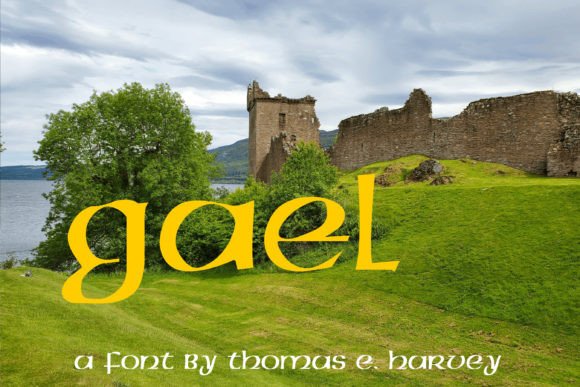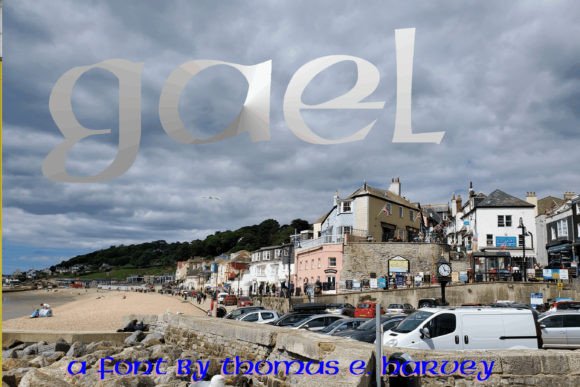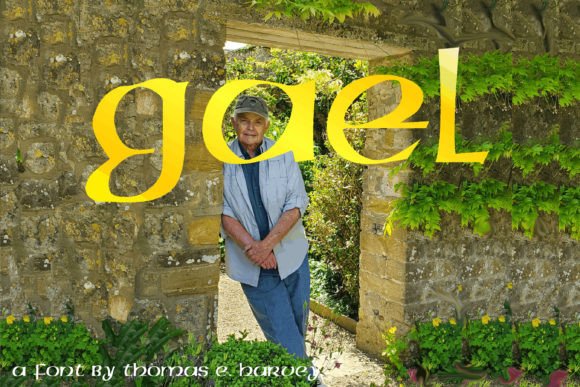
Gael Font: Vintage Typography for Celtic & Irish Logo Design
About the Gael Font
The Gael Font offers a perfect balance of form and function for your design needs. Gael echoes the Celtic fonts of the past. An essential old world font to use for projects that wish to have Irish, Scottish, Welsh or Cornish sensibilities.
Gael’s strong, slightly rustic character makes it ideal for headlines, logos, and short-form text in projects requiring a heritage feel. It works exceptionally well for branding related to whiskey, craft breweries, or traditional businesses emphasizing craftsmanship. Avoid using Gael for body text or lengthy passages; its ornate details can become visually overwhelming at smaller sizes.
Consider pairing Gael with a clean sans-serif like Montserrat for a modern contrast, or a classic serif such as Garamond for a more traditional feel. A script font like Allura could add a touch of elegance for sophisticated applications.
Gael projects a bold yet refined personality, conveying a sense of history and authenticity. Its inherent strength ensures readability in display sizes, making it a powerful choice for conveying heritage and tradition.